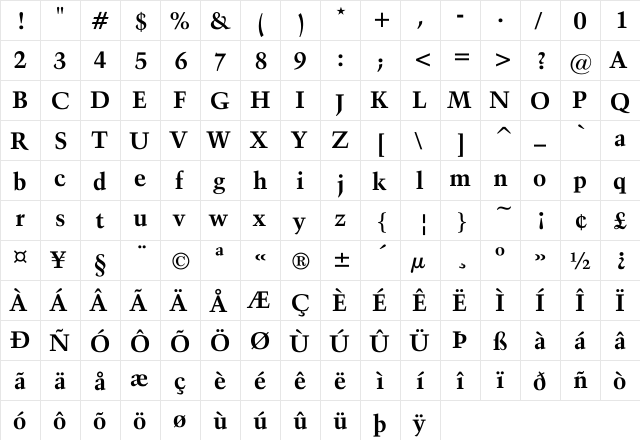
Activa-Bold Regular
Design Context for Activa-Bold Typeface
Activa-Bold offers clean, dependable letterforms without strong stylistic allegiance, making it a practical choice for designers who need flexibility. The heavy weight commands attention and anchors typographic hierarchies.
Pro Tip: Use Activa-Bold in both headline and body roles to test its range before committing to a single application.